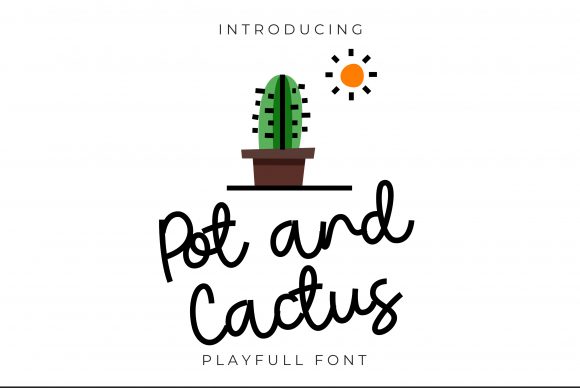
Journey through the enchanting realm of Pot and Cactus, an extraordinary script font that exudes charm and uniqueness. Crafted with meticulous care by dangglemstudio, this font is a masterpiece that breathes life into your creative endeavors.
Unleash the playful spirit of Pot and Cactus, a font that effortlessly captures the essence of lightheartedness and joy. With its whimsical strokes and captivating curves, this font transforms ordinary words into mesmerizing works of art.
Embrace the boundless versatility of Pot and Cactus, a font that seamlessly adapts to a myriad of design aesthetics. From playful cartoon animations to captivating children's games, this font effortlessly adds a touch of magic and wonder to every creation.
Indulge in the nostalgic charm of Pot and Cactus, a font reminiscent of cherished handwritten notes and heartfelt messages. Its delicate strokes evoke a sense of warmth and familiarity, inviting readers to immerse themselves in the beauty of your words.